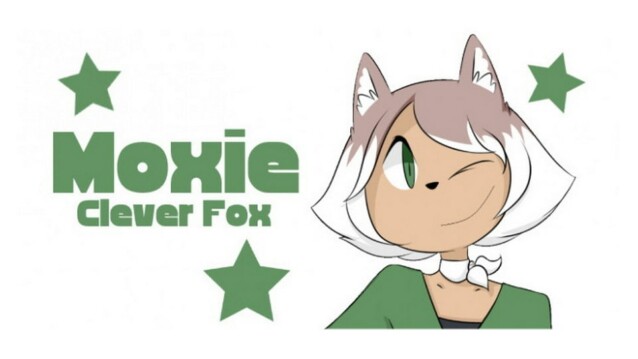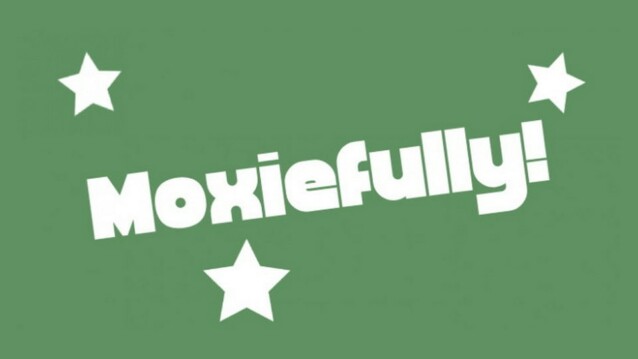
Moxiefully Font
Moxiefully Font is a dynamic variable font designed to elevate your typographic creations with its sleek, modern, and humanist-inspired aesthetic. The font is crafted with bold strokes and whimsical details, creating a font that radiates a cheerful and animated vibe.
With its rounded letterforms and friendly demeanor, Moxiefully font is perfect for projects that demand a bold and playful aesthetic. Whether used in children’s books, comic strips, or vibrant branding materials, this font stands out as a versatile and visually engaging choice that adds a delightful touch of fun to your typographic compositions.